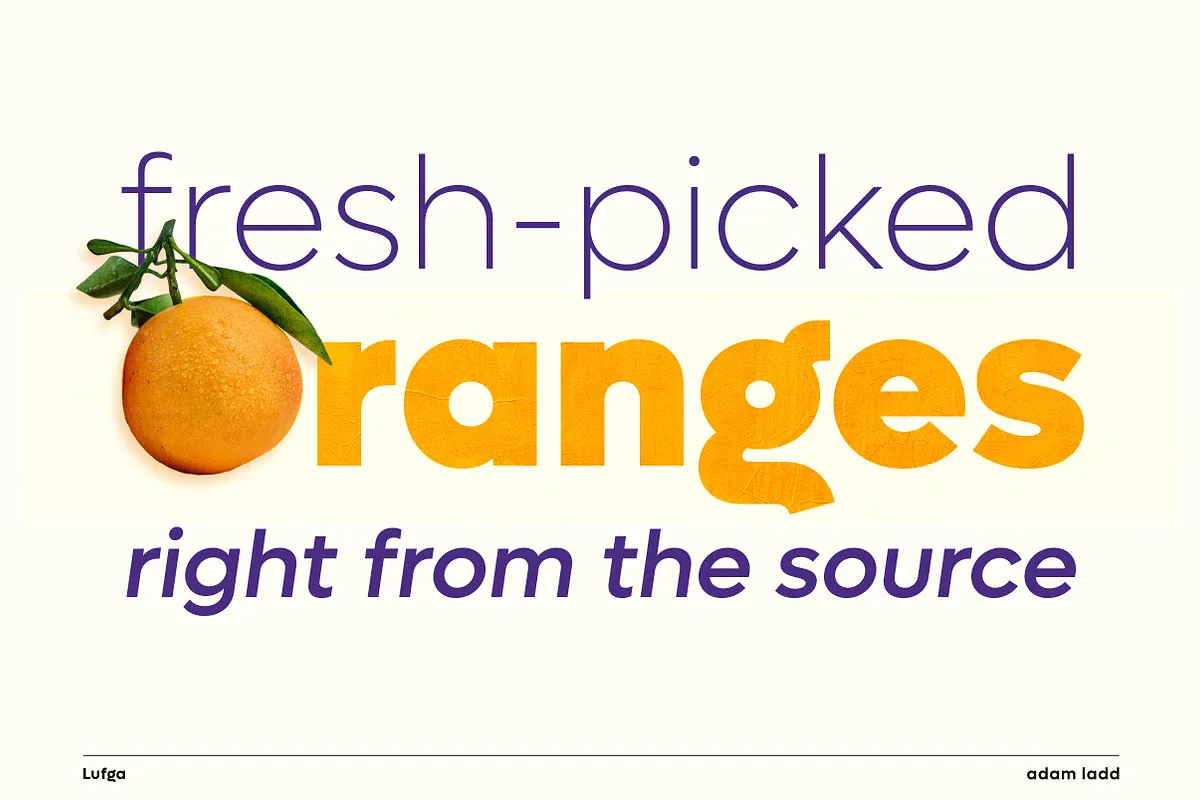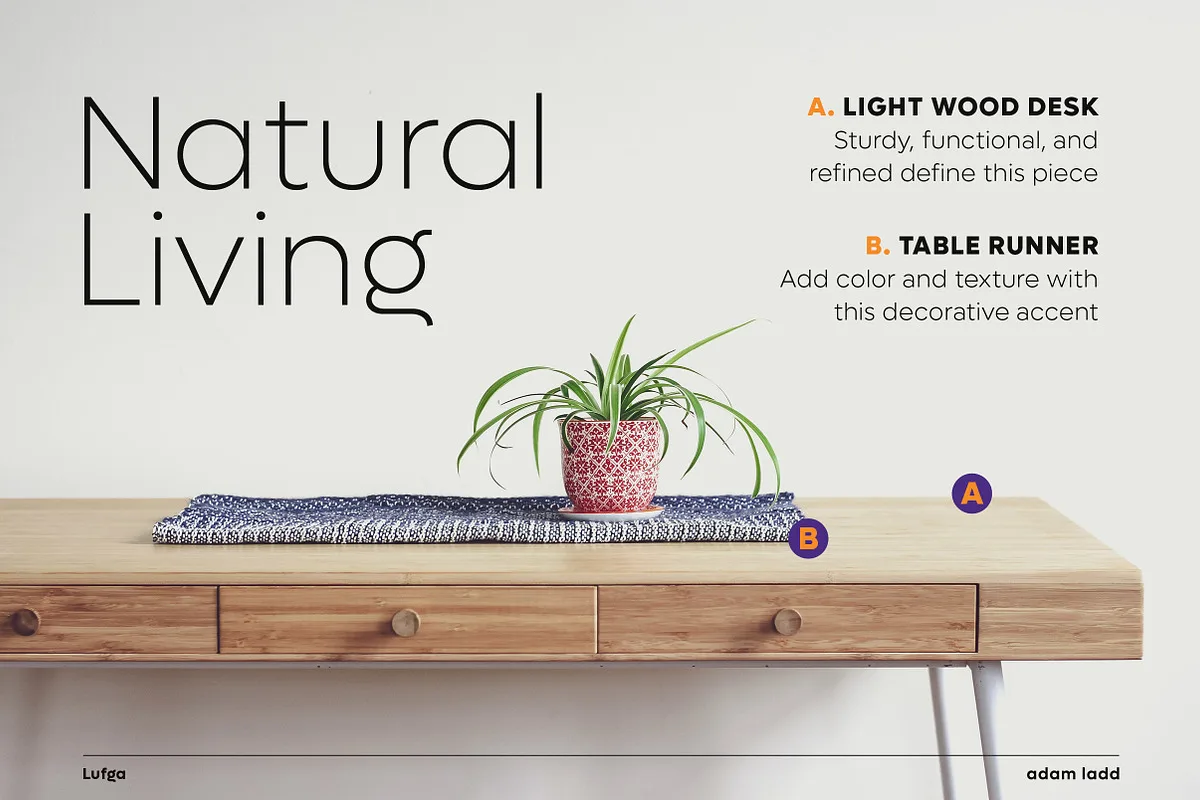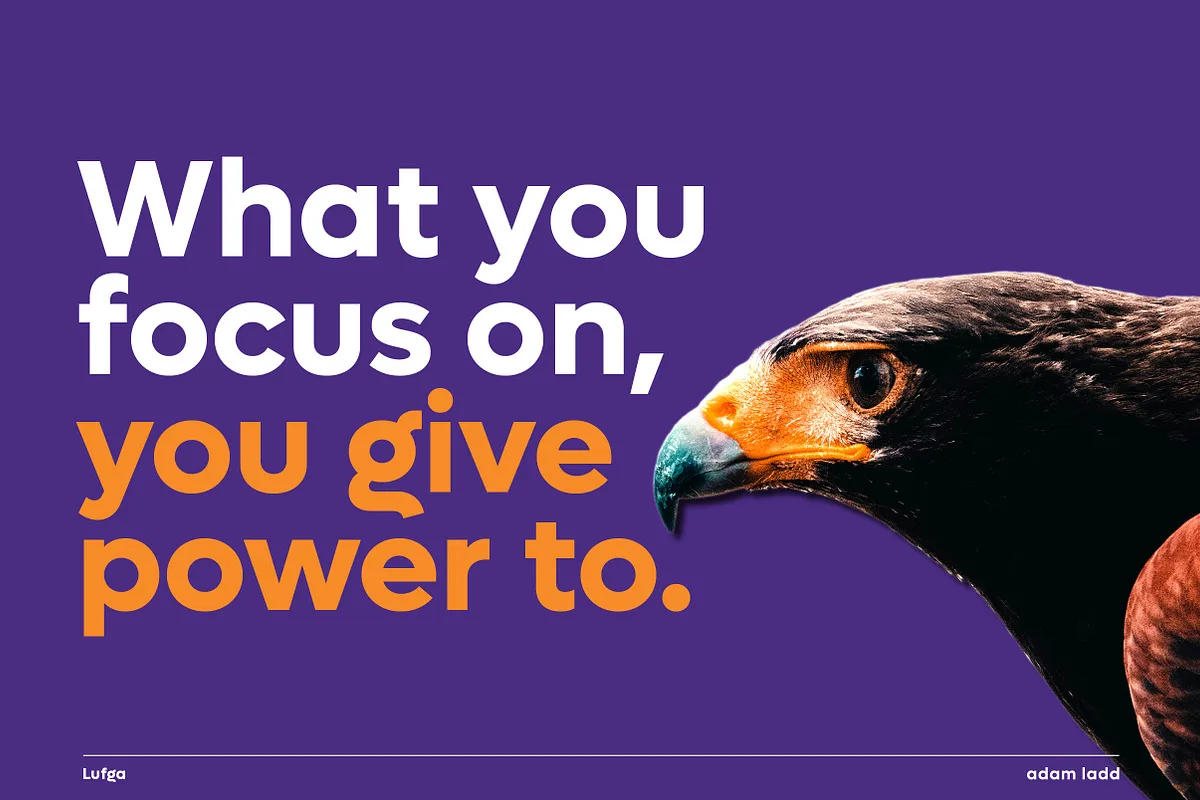
Lufga Font is a modern geometric sans serif font family designed with distinctive characters that add subtle personality to clean, contemporary typography. Simple yet sophisticated, Lufga delivers a crisp, minimal look while carrying gentle retro undertones – making it both timeless and expressive.
One of Lufga’s most recognizable features is its unique lowercase g and u, which give branding and logo designs a memorable identity. The font also includes stylistic alternates, allowing you to adjust the tone and presentation when needed.
Why Choose Lufga Font?
Lufga is built to be versatile and highly functional across many design contexts.
- Clean geometric structure with refined details
- Distinctive lowercase characters for brand recognition
- Minimal design with low contrast and large x-height
- Excellent readability for both text and display use
If you’re looking for a sans serif font that feels modern, professional, and quietly distinctive, Lufga is a strong choice.
Flexible Font Family for Text & Display
Lufga includes a full range of weights from Thin to Black, along with matching italics, making it suitable for complete design systems.
- Thin through Black weights
- Italic styles included
- Works seamlessly for body text, headings, and display typography
Best Uses for Lufga Font
Thanks to its clean structure and modern character, it is perfect for:
- Brand identity & logo design
- Advertising & marketing materials
- Product packaging & labels
- Editorial layouts & magazine headlines
- Websites & digital interfaces
- Posters, banners, and visual systems
Glyphs & Multilingual Support
Lufga Font includes over 600 glyphs, providing broad typographic flexibility.
- Extensive multilingual Latin language support
- Covers 100+ languages
- Supports Western, Central & South-Eastern European languages